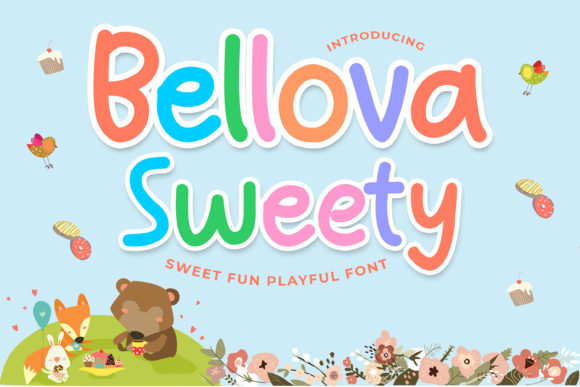
Introducing Bellova Sweety, the enchanting display font that will add a touch of sweetness to all your creative endeavors. Its playful, childish nature makes it the perfect choice for any project that calls for a hint of whimsy and charm.
Picture yourself using Bellova Sweety to craft adorable greeting cards that will spread joy and laughter. Its easy-to-read characters will ensure that your messages are conveyed with utmost clarity, leaving a lasting impression on your loved ones.
But Bellova Sweety's versatility extends far beyond greeting cards. Whether you're designing eye-catching digital content, creating captivating presentations, or adding a personal touch to your crafts, this font will effortlessly elevate your creations. Its impeccable friendliness shines through in every letter, drawing the attention of your audience and leaving them with a smile.